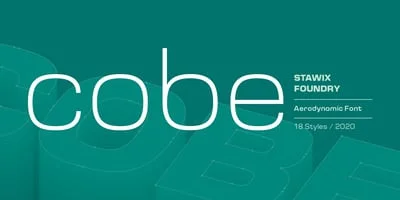
Cobe Font
Cobe Font is ideal for modern design projects including contemporary tech companies, minimalist architecture firms, clean lifestyle brands, modern digital agencies, progressive startups, sleek product packaging, streamlined corporate communications, and sophisticated contemporary campaigns. This refined typeface works perfectly for modern consulting firms, clean beauty brands, contemporary art galleries, minimalist design studios, and projects that celebrate the elegance of modern simplicity and contemporary design sophistication.
What makes Cobe Font exciting is its clean contemporary character that perfectly captures the essence of modern minimalism and sophisticated simplicity. The font features streamlined letterforms with precise geometry that reflects the clarity and efficiency valued in contemporary design. Its refined design elements embody the spirit of modern elegance and aesthetic reduction, making it perfect for projects that need to convey sophistication, clarity, and connection to contemporary design trends. The carefully crafted minimalist proportions create an atmosphere of modern sophistication and contemporary authenticity.
Cobe Font comes in multiple family variations including clean, minimal, contemporary, and refined styles. Each weight maintains the distinctive modern character while offering different levels of contemporary intensity and minimalist presence. The font family includes modern alternates, clean ligatures, and contemporary variations that provide designers with comprehensive options for creating truly sophisticated and authentically modern typographic compositions that celebrate contemporary excellence.
Whether you're designing modern branding, creating contemporary marketing materials, or developing minimalist promotional graphics, Cobe Font provides the perfect typographic foundation for projects that celebrate modern excellence and contemporary sophistication. This remarkable typeface transforms ordinary text into compelling expressions of contemporary wisdom and modern elegance. Download this refined font today and modernize your design projects with the contemporary authenticity and minimalist sophistication that captures the essential spirit of modern design thinking and aesthetic refinement.